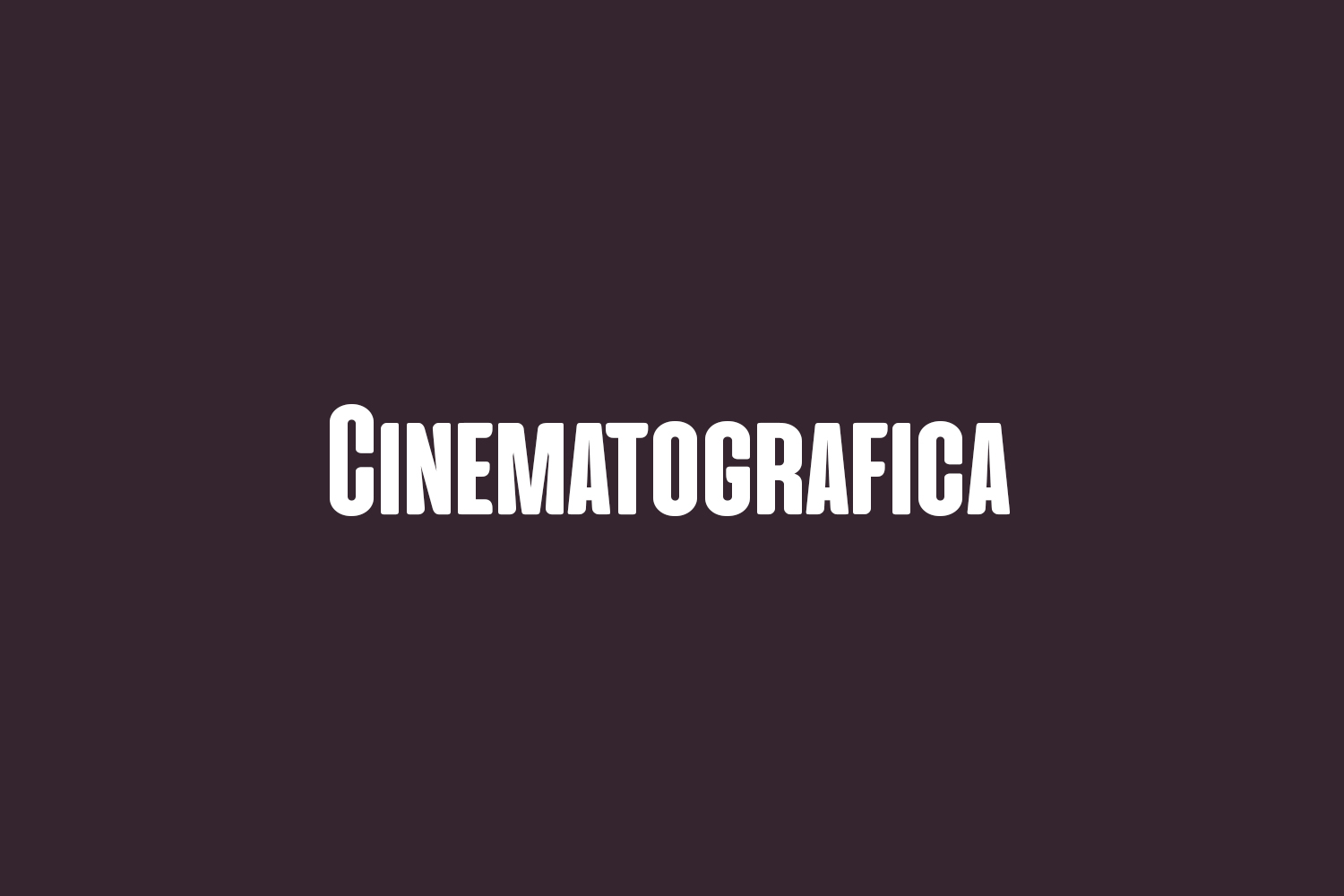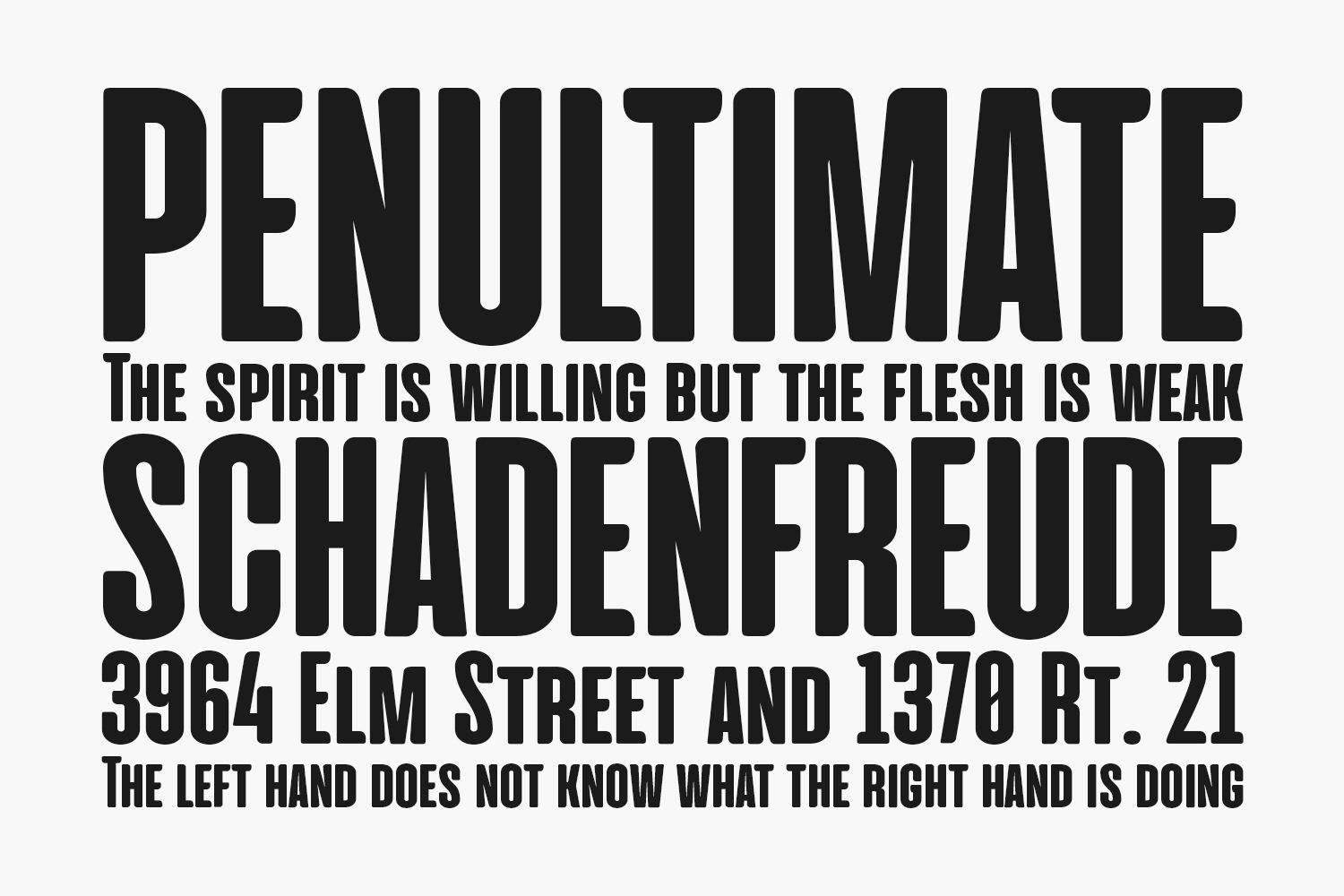
Cinematografica Free Font is an Ultra Condensed Small Caps typeface created by Francesco Canovaro and used in the advertising campaign for Lucca Comics 2017 Festival.
Designed by Zetafonts